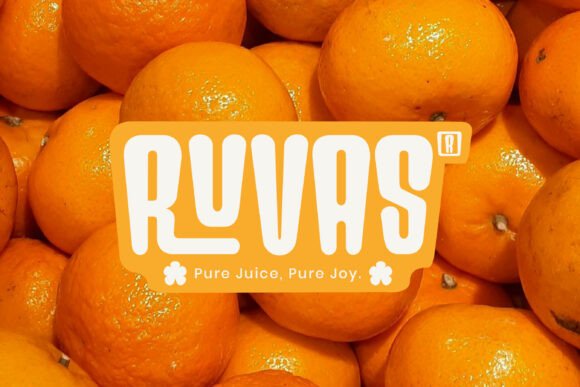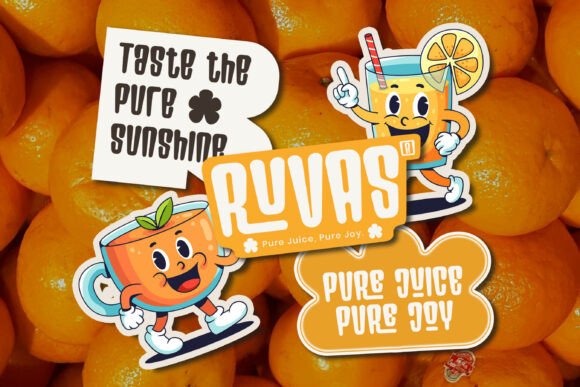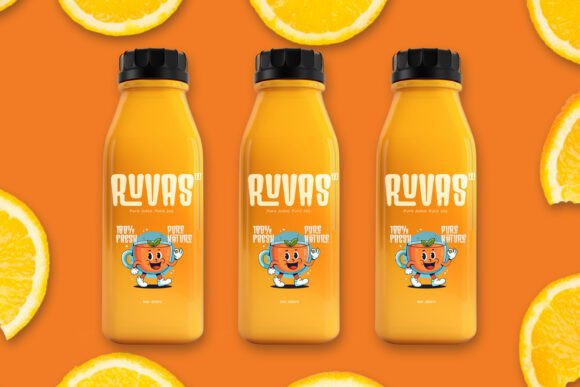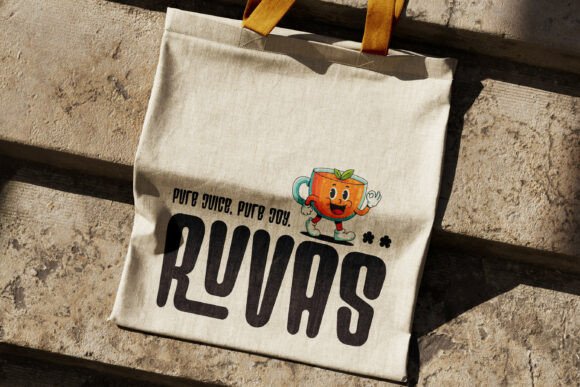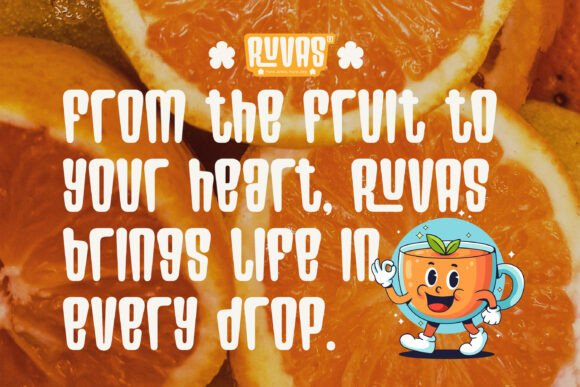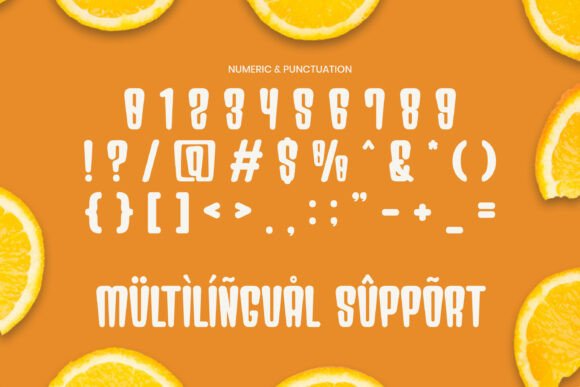
Introduction to Ruvas Font Font
Fonts play a crucial role in design, and the Ruvas Font font is a typeface that brings both character and versatility to any project. Whether you’re working on a branding project, a website, or a print design, the Ruvas Font font offers a unique style that can elevate your work.
Ruvas is a cheerful and energetic playful display font designed to bring a burst of personality to your creative projects.
With its bold shapes, bouncy curves, and quirky character details, Ruvas delivers a fun and joyful look that instantly captures attention Perfect for childrenβs products, cartoon titles, food & beverage branding, mascot designs, logos, packaging, social media posts, and any project that needs a lively, vibrant touch.
Key Features of Ruvas Font Font
Why Choose Ruvas Font Font?
The Ruvas Font font is more than just a typeface β it’s a design tool that helps you communicate your message with style and clarity. Its unique character set and versatile design make it suitable for a wide range of applications, from elegant invitations to bold headlines.
With its carefully crafted letterforms and balanced proportions, the Ruvas Font font ensures readability and visual appeal across all mediums.
What makes Ruvas Font font special?
The Ruvas Font font stands out with its unique design, exceptional readability, and versatility across various design applications.